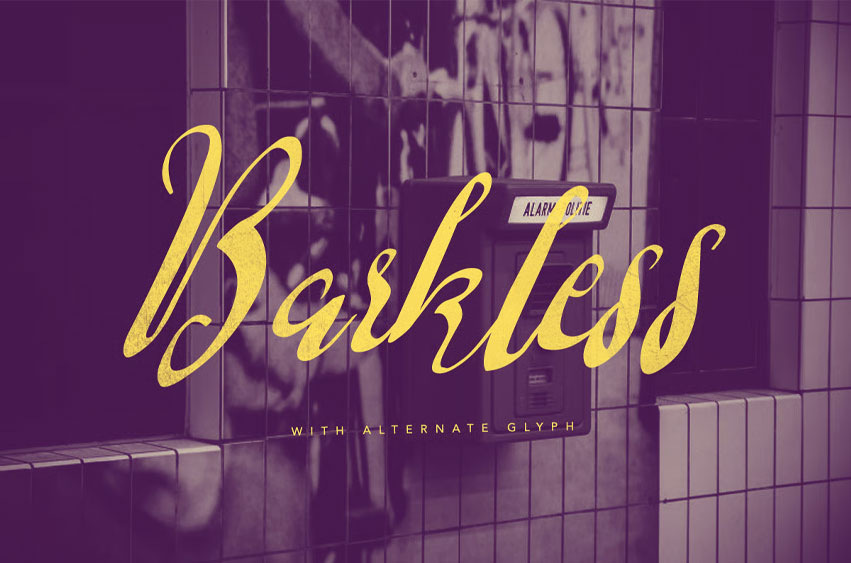
Barkless Font is hand-painted brush font and every single letters have been carefully crafted to make your text looks awesome. With alternate glyph will make your word feel like natural hand drawn.
Barkless including initial and terminal letters, alternates, ligatures and multiple language support.